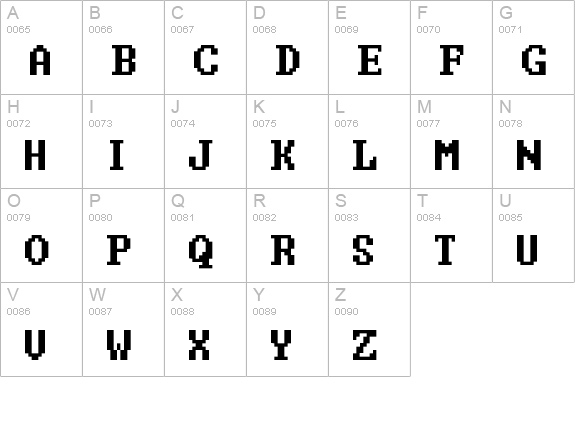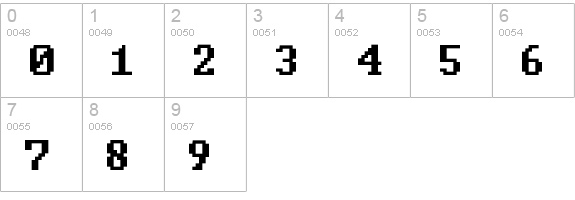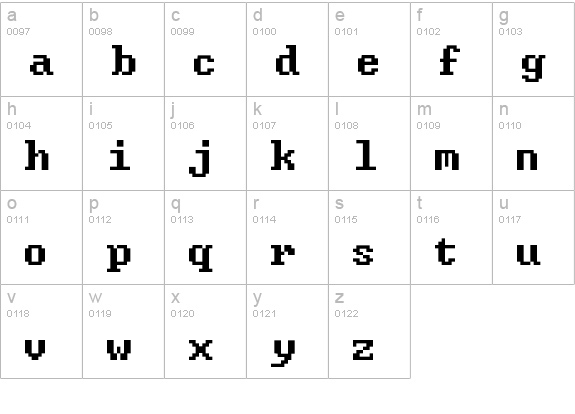
Green Screen Font Details
Introducing Green Screen font, a vibrant and versatile typeface that will add a touch of creativity to your design projects. This free font captures the essence of a digital screen, with its clean lines and retro aesthetic. Its bold and eye-catching characters will instantly grab the attention of your audience, making it perfect for headings, logos, posters, and more. The Green Screen font is not only visually stunning, but it also offers a wide range of possibilities for customization. With its easily readable letters and distinct style, this font will effortlessly enhance the overall look and feel of your designs. Whether you're working on a futuristic website, a trendy magazine layout, or a captivating social media post, Green Screen font will undoubtedly make a lasting impression. One of the best things about Green Screen font is that it is freely available to download at FontsMarket.com. This means that you can instantly access this font and start using it in your projects without any cost. FontsMarket.com is a trusted source for high-quality fonts, and Green Screen font is no exception. With just a few clicks, you can download this font and start incorporating it into your designs, giving them a fresh and modern look. So why wait? Give your designs a digital edge with Green Screen font. It's free, it's versatile, and it's ready to take your creations to new heights. Download it now from FontsMarket.com and let your imagination run wild with this captivating typeface.